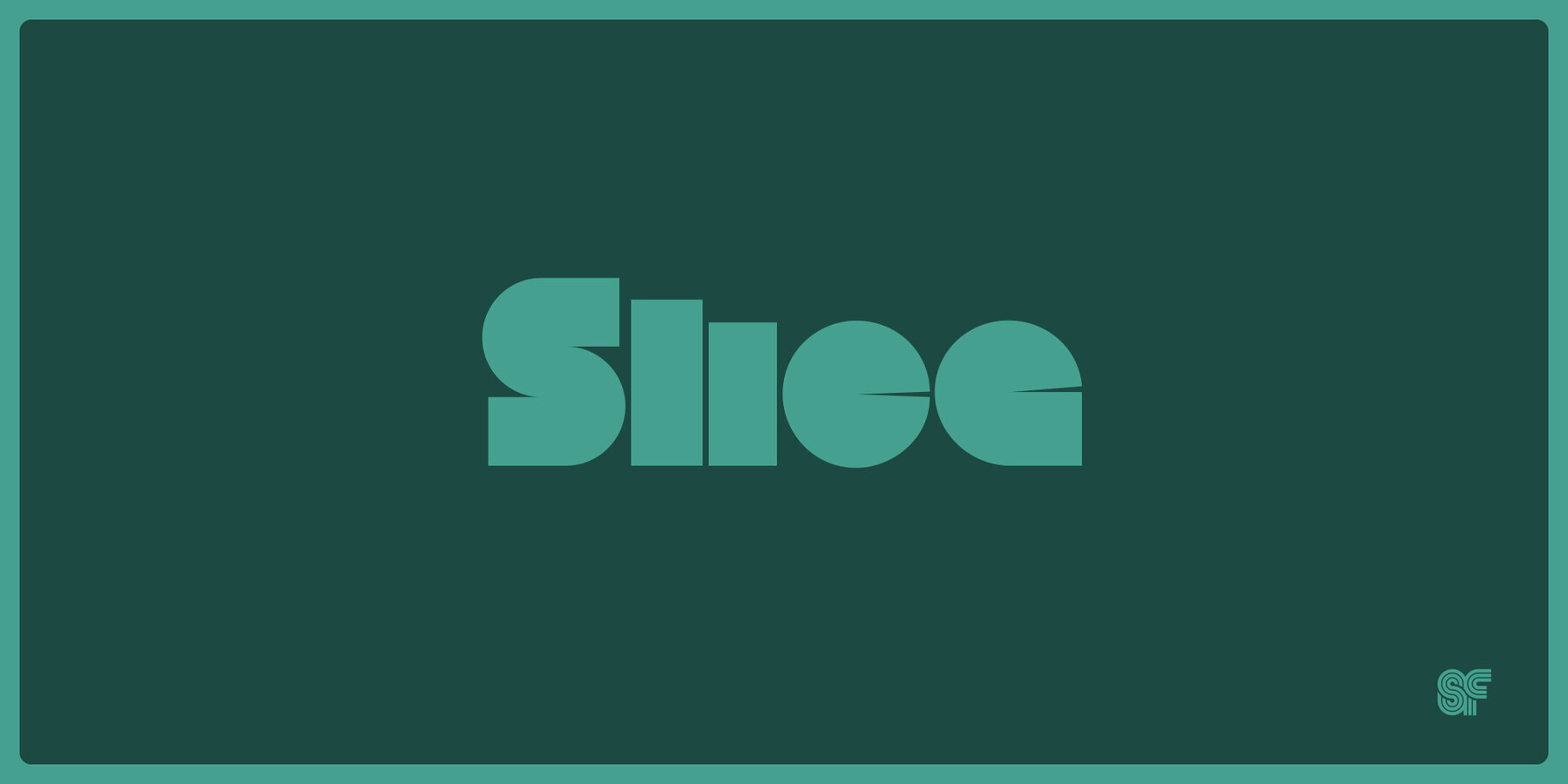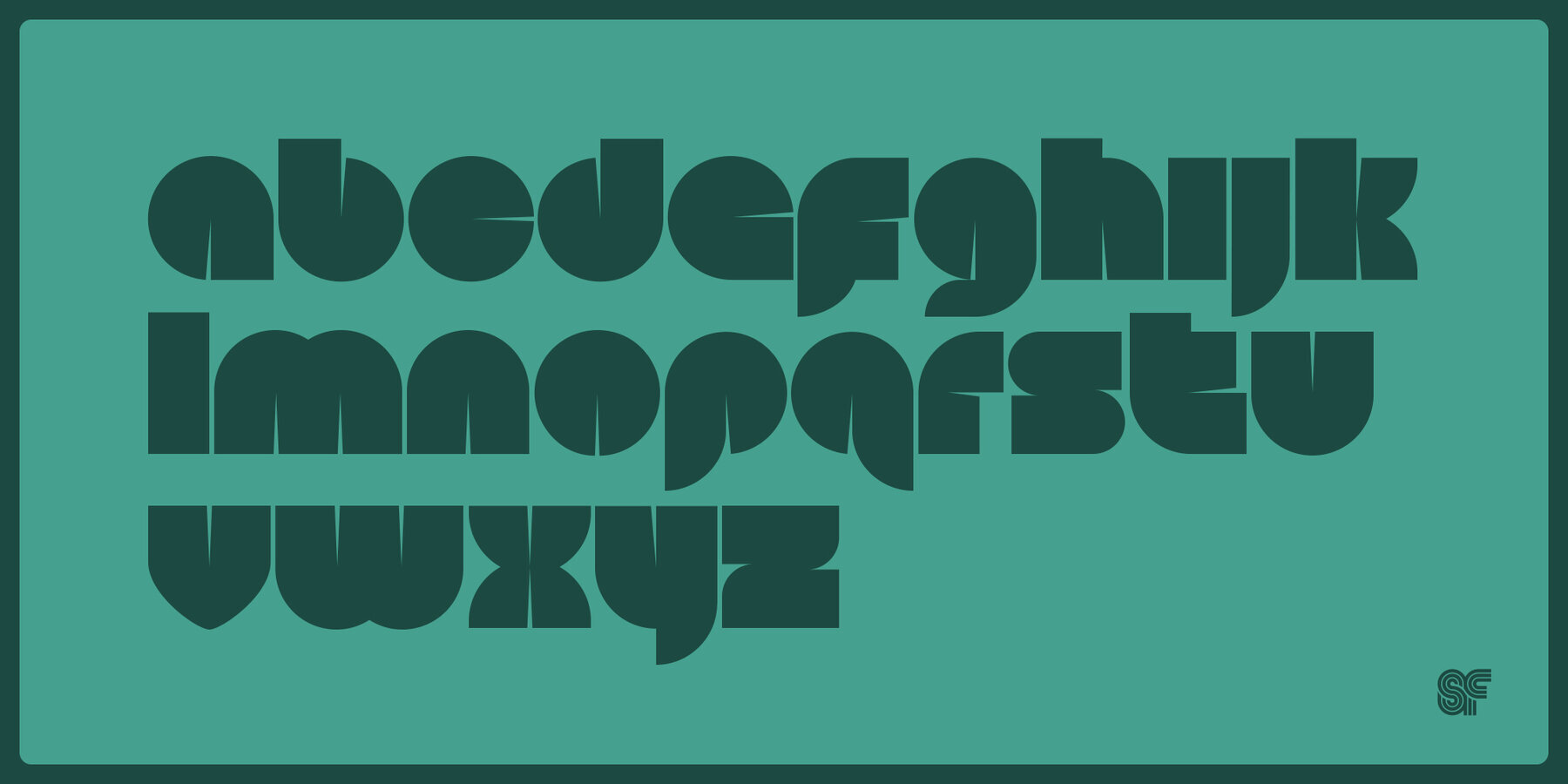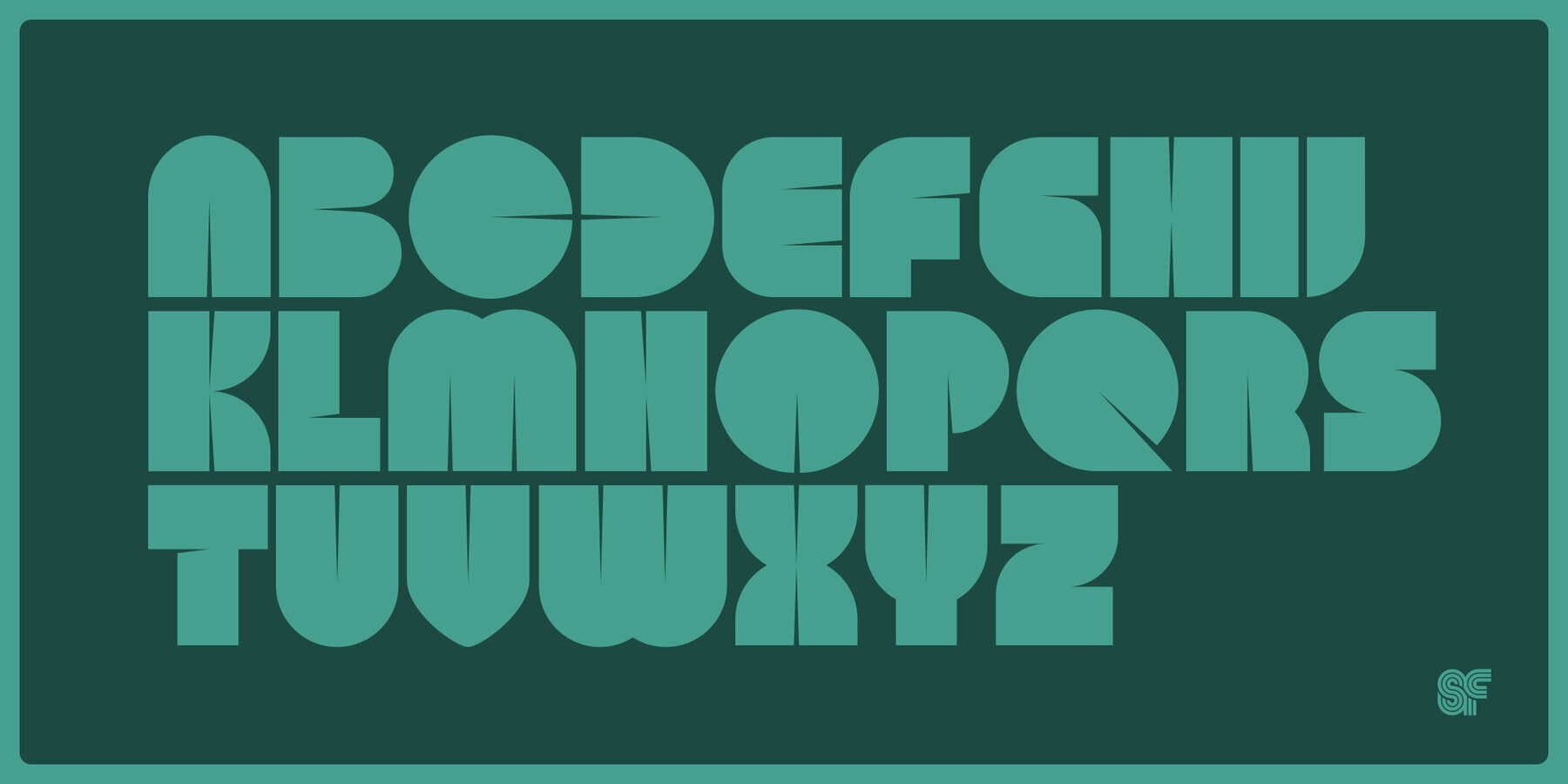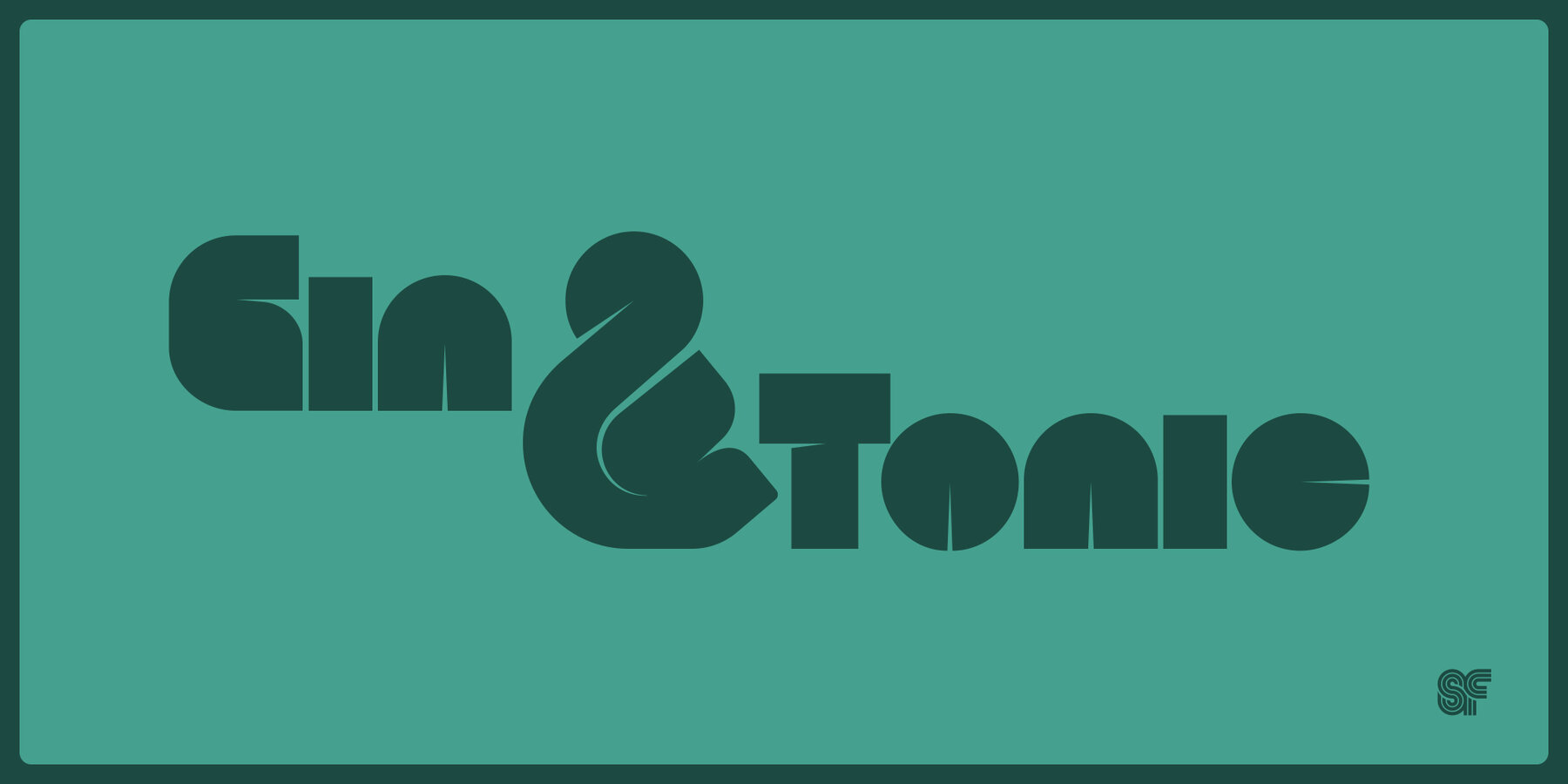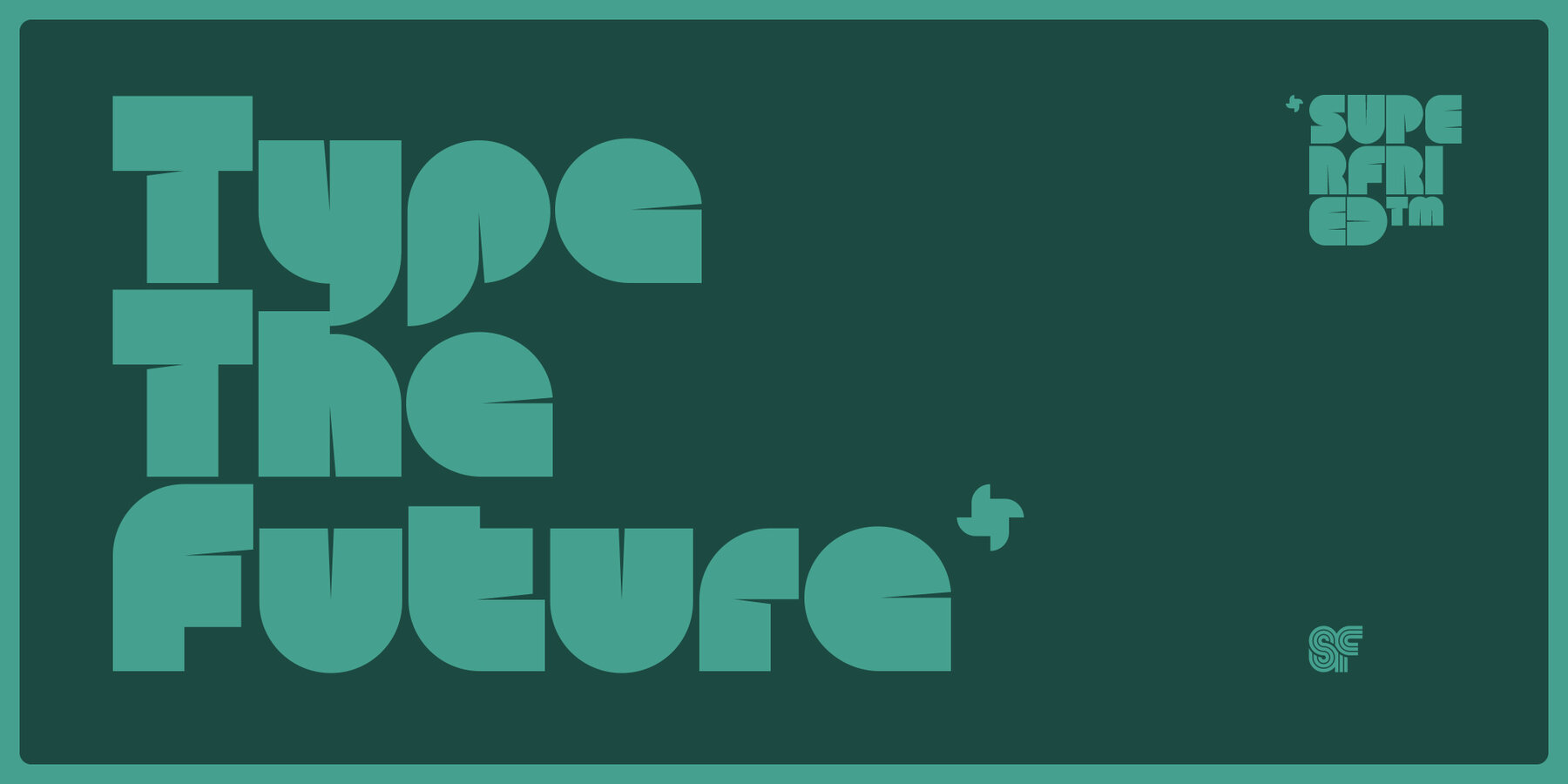
Slice Font
Slice Display
Slice is an experimental, circular, display typeface designed by Superfried. Slice, like its big brother Slash, also features key incisions to form the glyphs. Unlike Slash, Slice is much simpler in design based on basic geometric forms and features both upper and lowercase. Slice has a very retro feel & its chunky structure leads to a distinct, high-impact display font. Slice has been featured on the Behance curated typographic gallery TypographyServed.com.